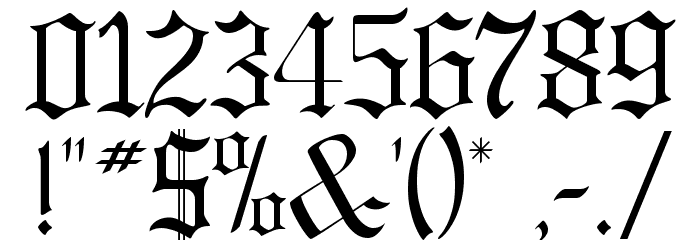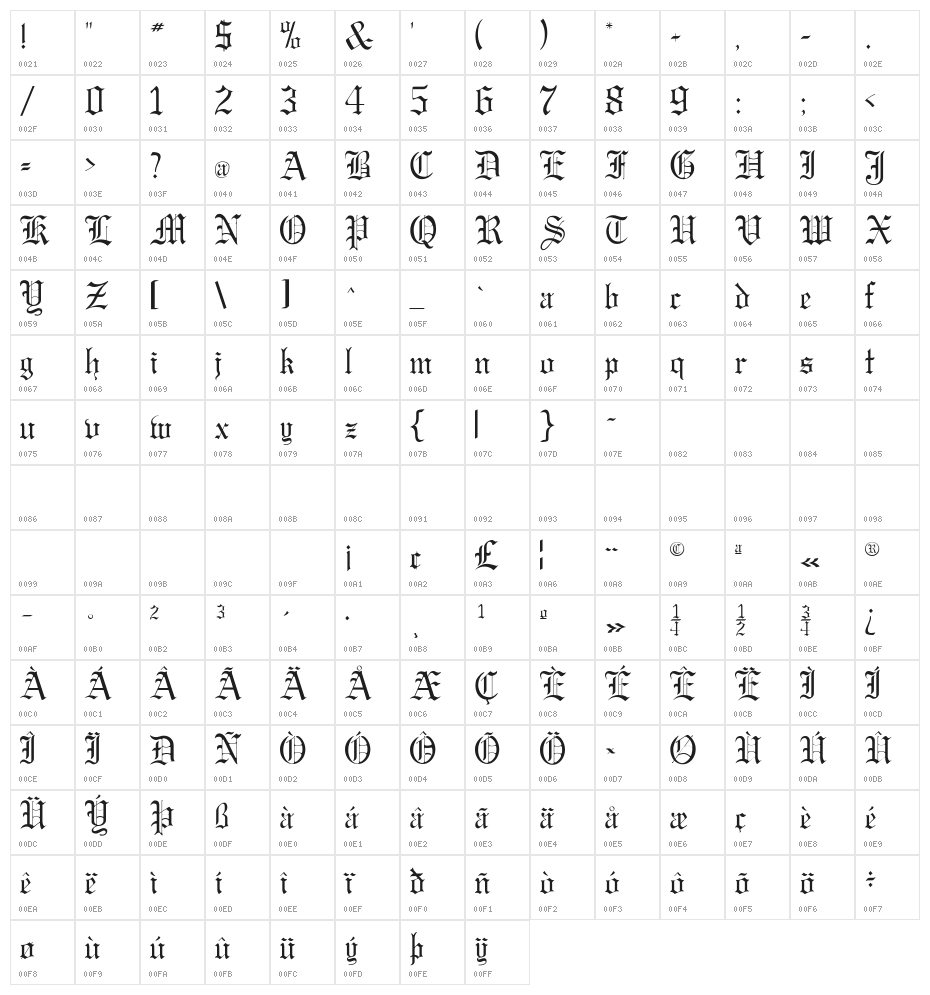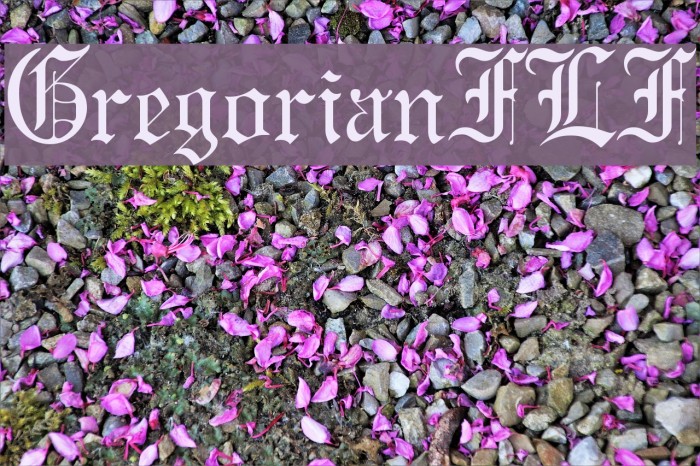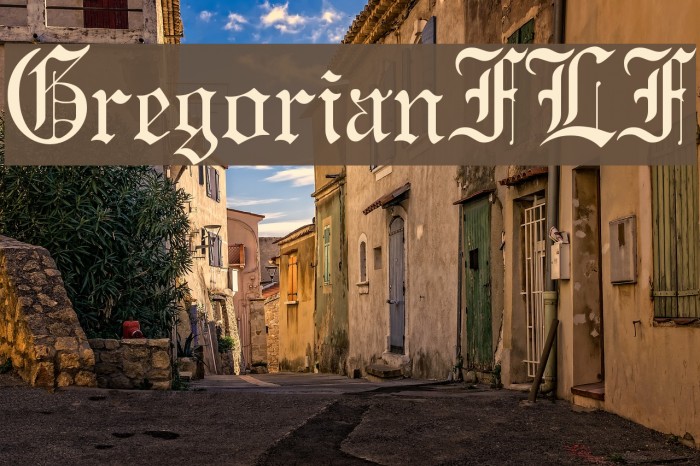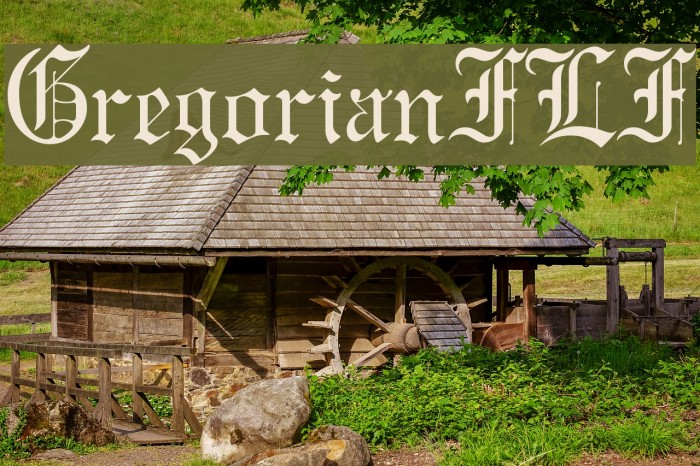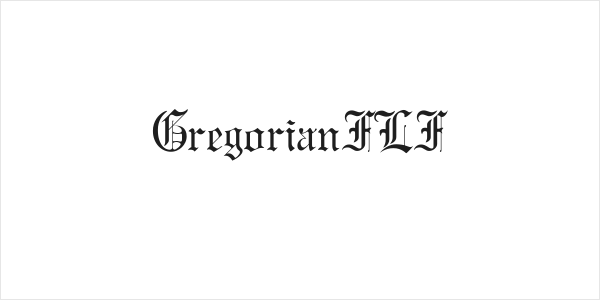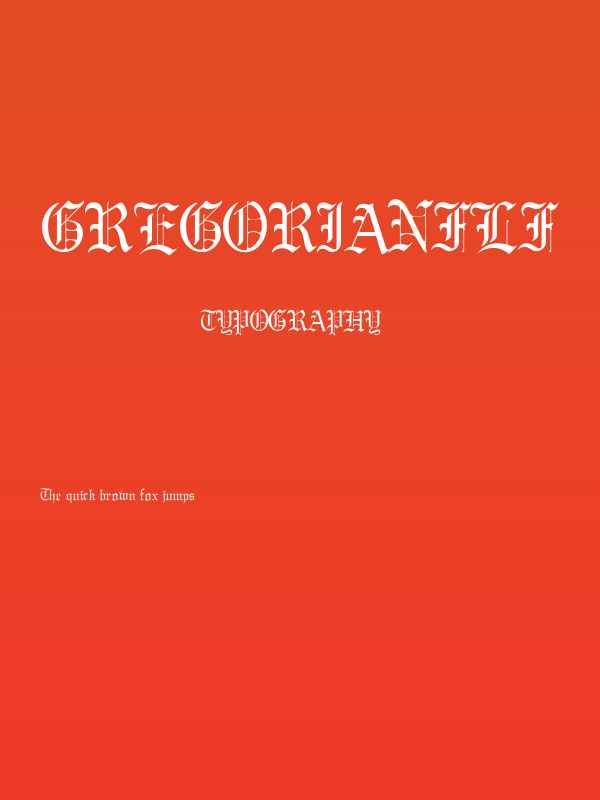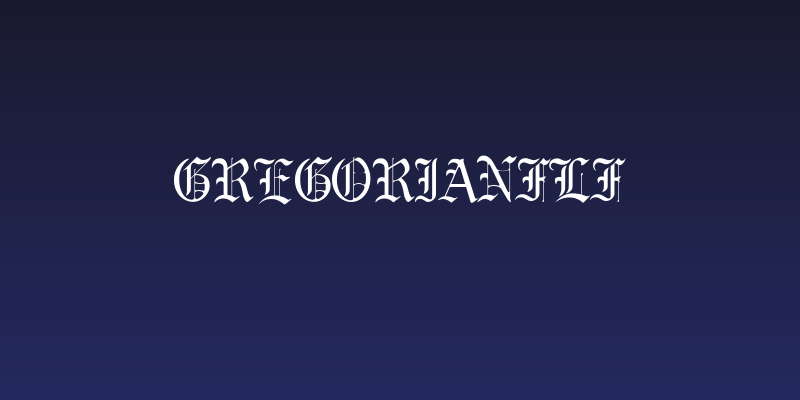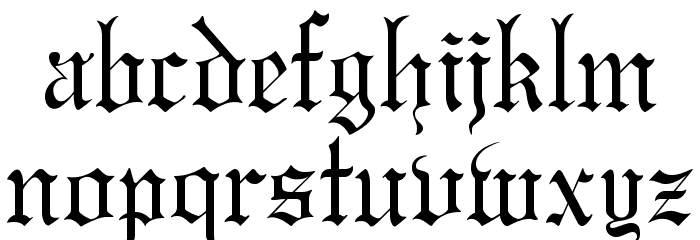
GregorianFLF Font
GregorianFLF Description
This font exudes a classic and historical aura, reminiscent of medieval manuscripts and traditional calligraphy. The characters are intricately designed with sharp, angular strokes and elaborate serifs, giving it a distinctive Gothic appearance. The uppercase letters are bold and commanding, while the lowercase letters maintain a consistent style with slightly more fluidity. Numbers and special characters are crafted with the same attention to detail, ensuring a cohesive look throughout. This font is ideal for projects that require a touch of elegance and antiquity, such as invitations, certificates, and historical documents.
| Use Case | Headlines, Decorative text |
| Proposed Projects | Ideal for historical documents, invitations, certificates, and decorative purposes. |